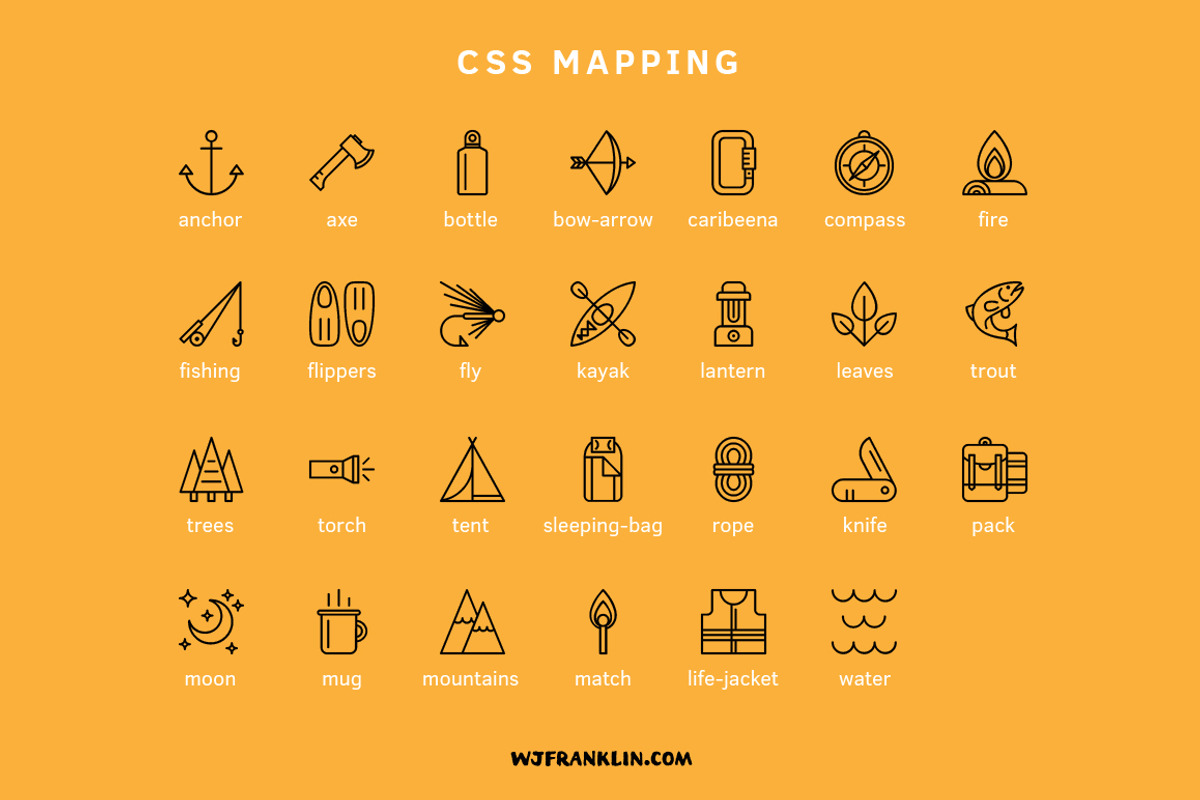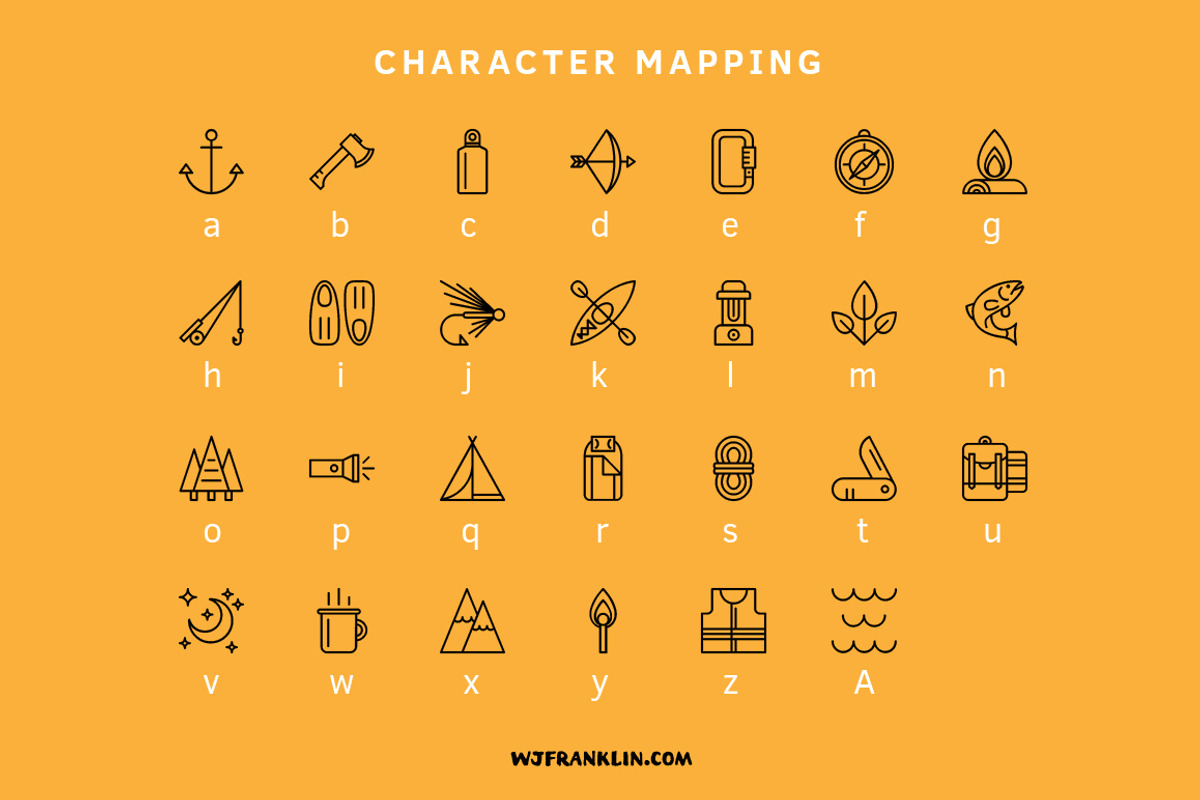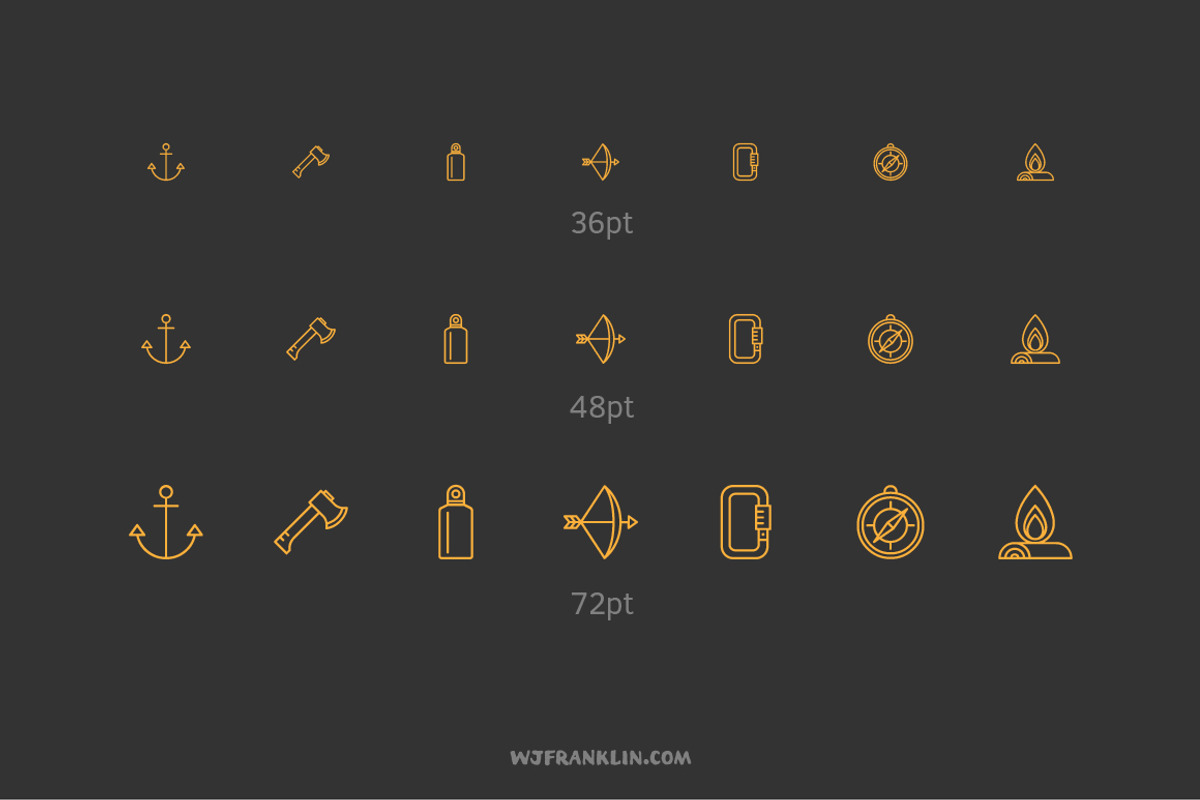
Outdoor Adventure Icon Font
Outdoor Adventure Icon Font by Wes Franklin is a font selected for branding, posters, packaging, typography.
Why Outdoor Adventure Icon Font is worth a look
Outdoor Adventure Icon Font by Wes Franklin fits naturally into Branding, posters, packaging, typography.